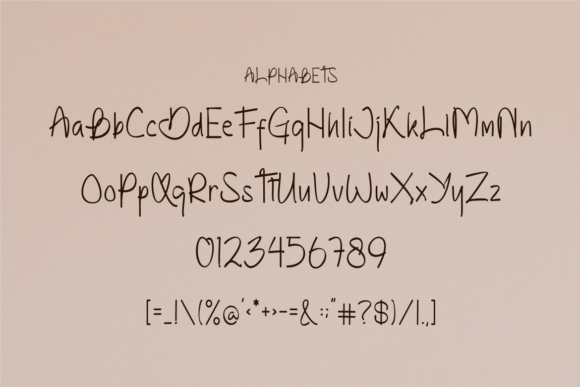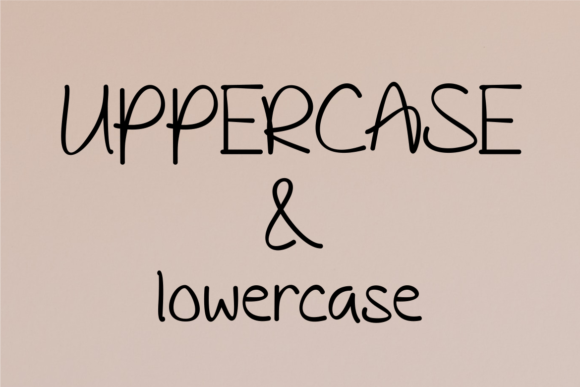
Yin Nastroe Font
About Yin Nastroe Font
Introducing Yin Nastroe, an elegant, classy, and modern handwritten font meticulously crafted to infuse sophistication and style into a diverse array of creative projects. This versatile typeface is well-suited for fashion, apparel projects, signatures, album covers, logos, branding, magazines, social media, advertisements, and various other applications.
The inherent elegance and class of Yin Nastroe make it an exceptional choice for projects that demand a touch of refinement and contemporary allure. Whether you’re working on fashion-related designs, album covers, or branding materials, this font imparts a sense of sophistication and timeless beauty to your text.
In the realm of fashion and apparel projects, Yin Nastroe becomes a chic and stylish option. Its handwritten elegance adds a personalized and refined look, making it suitable for labels, tags, and other branding elements.
For signatures, logos, and branding, Yin Nastroe contributes to a distinctive and memorable visual identity. The modern handwritten script creates a unique and sophisticated signature style, ensuring that your brand exudes class.
Magazines and advertisements benefit from the classy and elegant vibe of Yin Nastroe. Its refined charm adds a touch of luxury to layouts, making your visual content more captivating and memorable.
On social media, Yin Nastroe becomes a captivating element that elevates your content. Whether you’re creating posts, stories, or advertisements, this font adds a touch of sophistication and modernity to your digital presence.
The versatility of Yin Nastroe ensures that it can adapt to various design contexts, making it a valuable tool for a range of creative projects.
In summary, Yin Nastroe is more than just a font; it’s a creative tool designed to bring elegance, class, and modernity to your projects. Whether you’re working on fashion, branding, or social media, let Yin Nastroe be the font that adds a touch of sophistication and refinement to your creative endeavors.